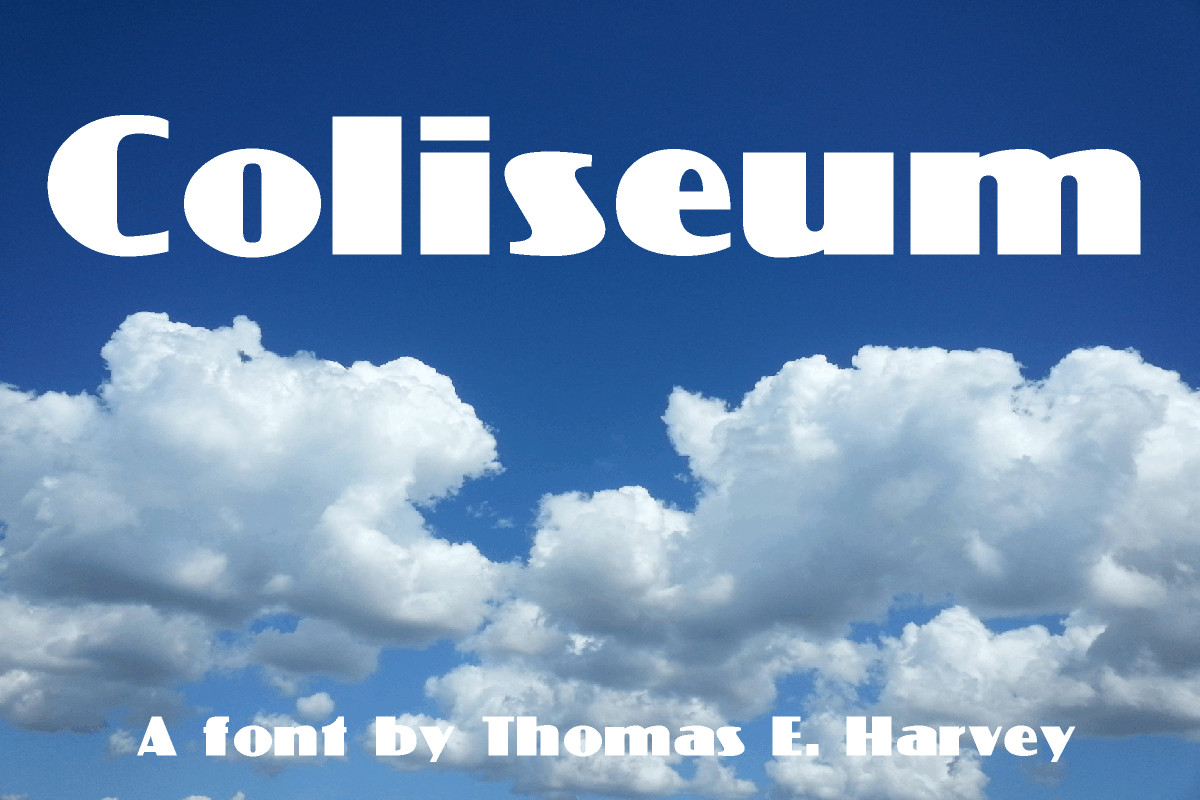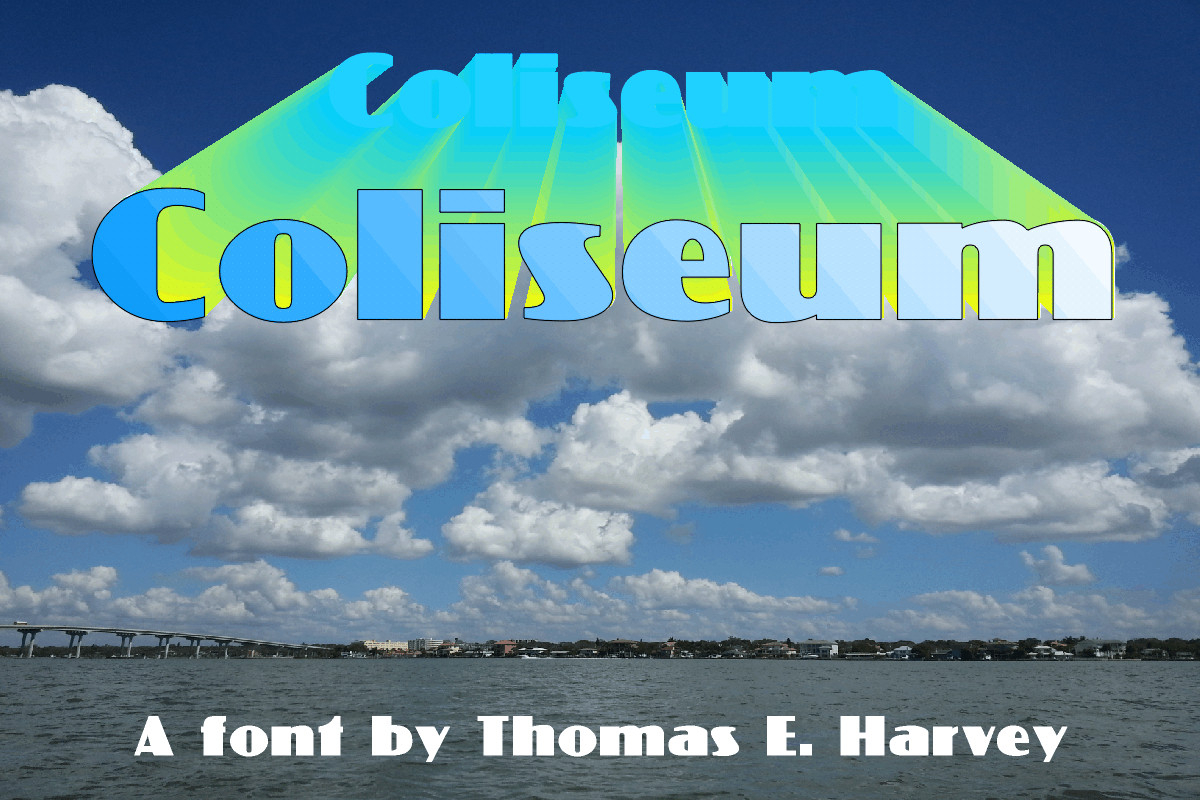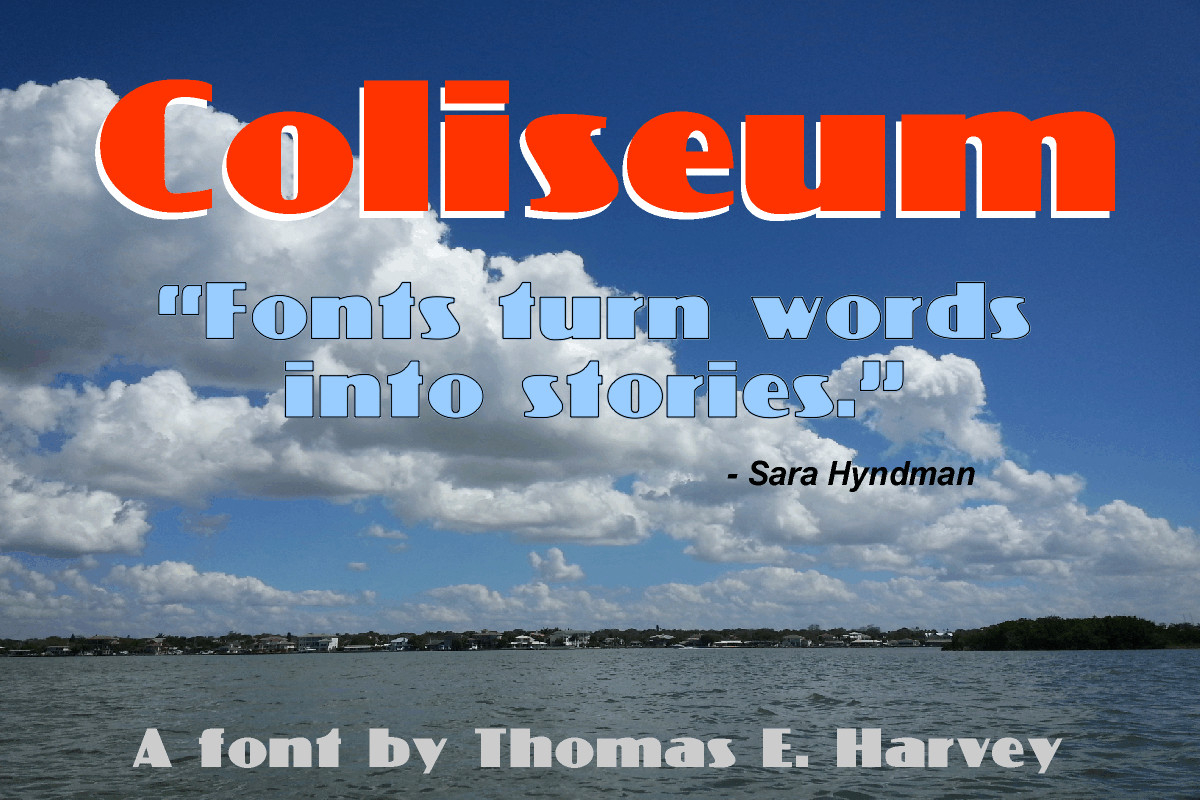
Coliseum Font
About Coliseum Font
Coliseum is a solid blackletter font that will make your statement in strong, heavy letterforms. Best used for short blasts of words – think name or logo – Coliseum has a strong impact on readers! Solid designs mark the character of this typeface resurrected from old vintage typography.